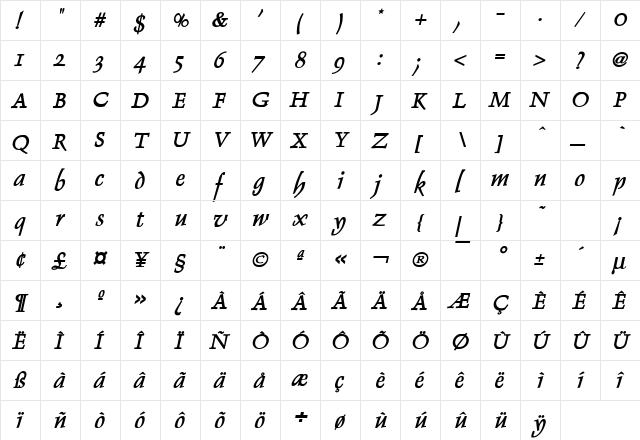
Dolphin Bold Italic
Design Context for Dolphin Typeface
Dolphin is a composed and adaptable typeface that performs quietly and consistently across a wide range of design contexts. Its italic angle brings a sense of urgency and motion to the letterforms. The heavy weight commands attention and anchors typographic hierarchies.
Pro Tip: Try Dolphin for annotation and caption copy alongside an upright companion — the contrast in angle creates a dynamic but ordered typographic system.